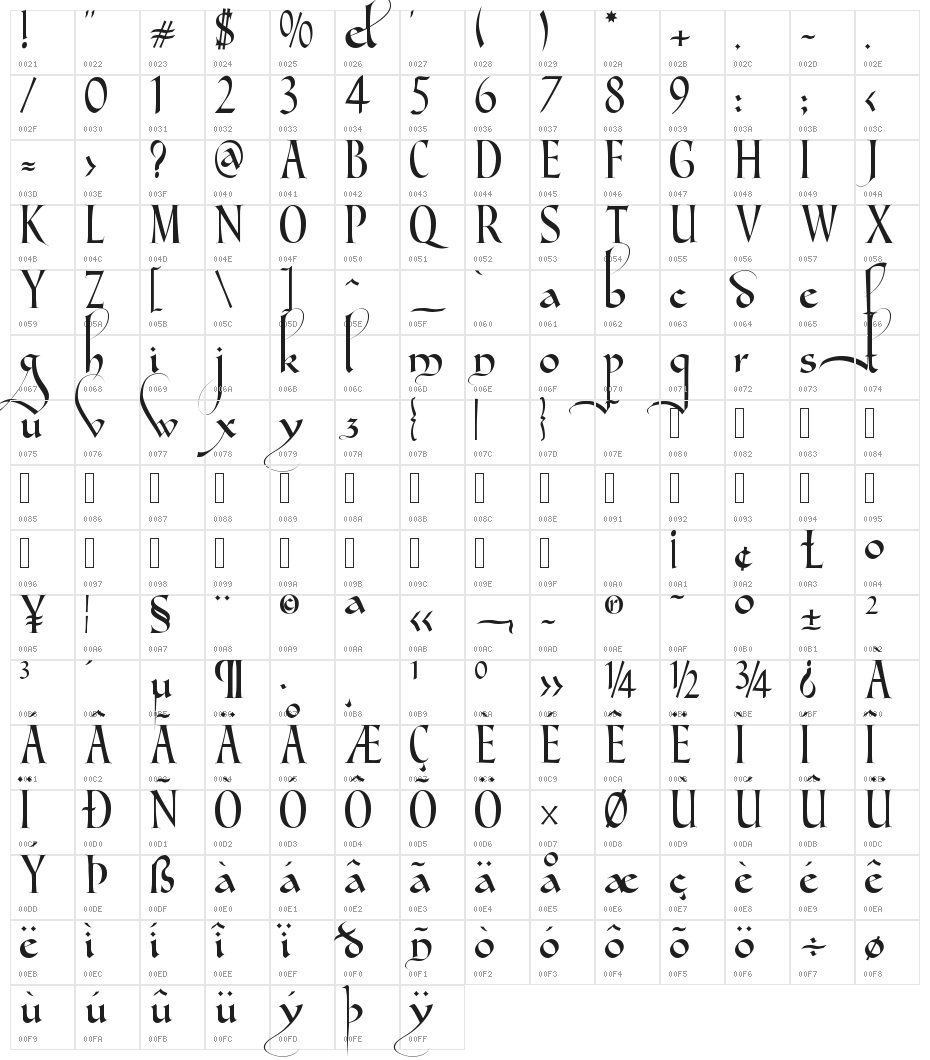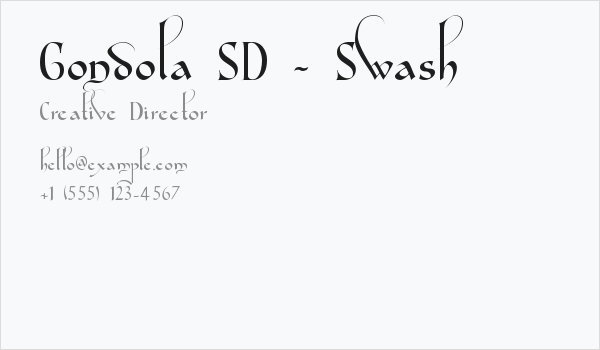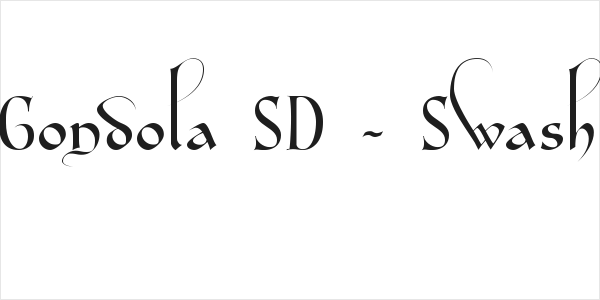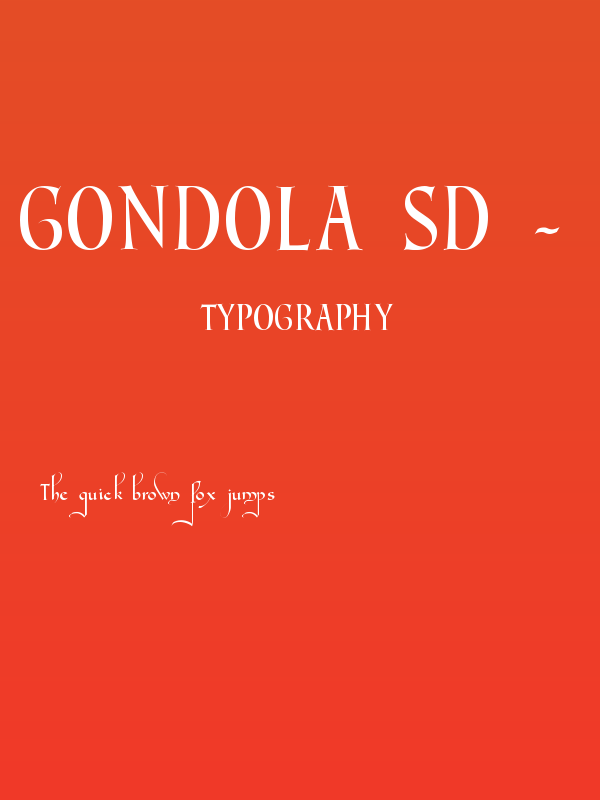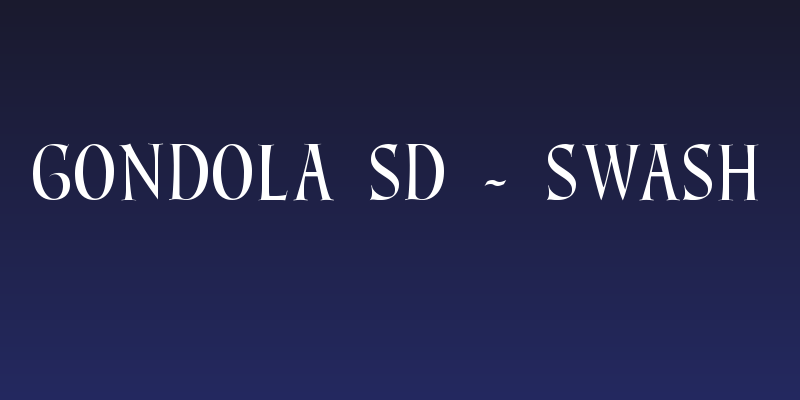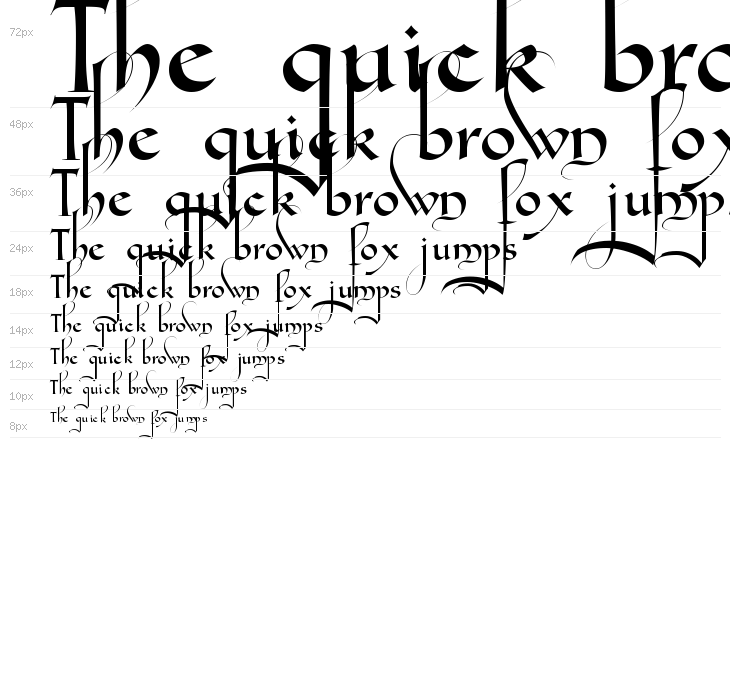
Gondola SD - Swash Font
Gondola SD - Swash Description
This font exudes elegance and sophistication with its swash elements and flowing curves. The uppercase letters are tall and slender, featuring delicate serifs that add a touch of classic charm. The lowercase letters are equally graceful, with some characters extending into beautiful, sweeping tails. The numbers maintain the same elegant style, ensuring consistency throughout. Special characters are adorned with intricate details, enhancing the overall decorative appeal. This font is perfect for projects that require a touch of luxury and refinement.
| Proposed Projects | Ideal for wedding invitations, luxury branding, high-end product packaging, and elegant editorial design. |